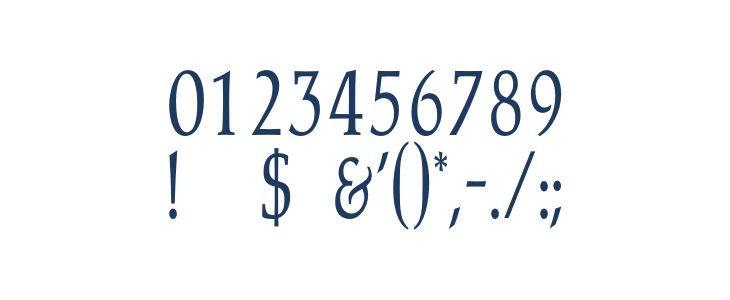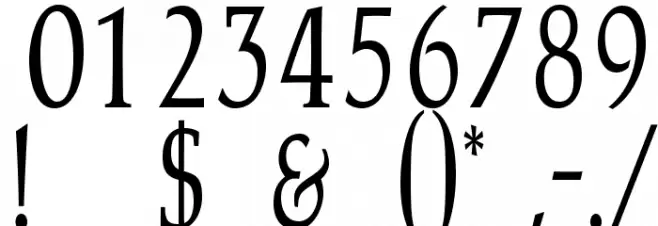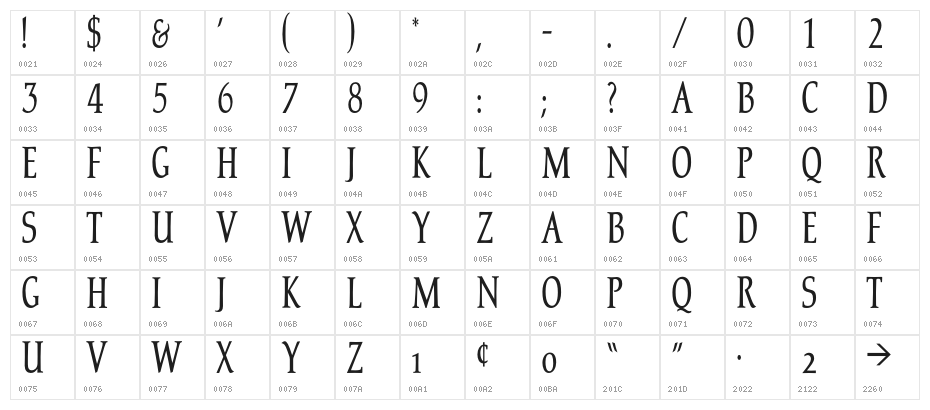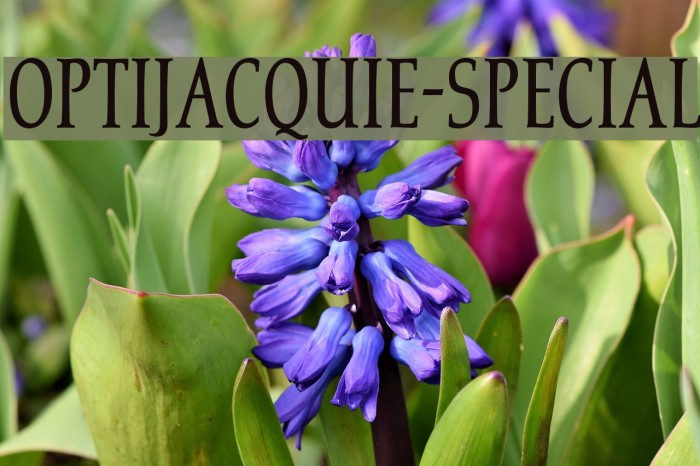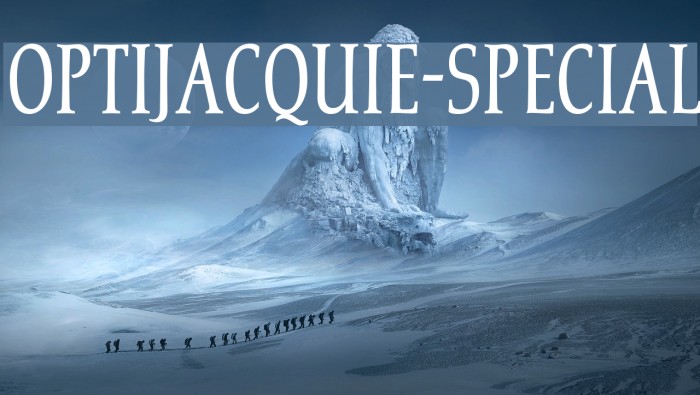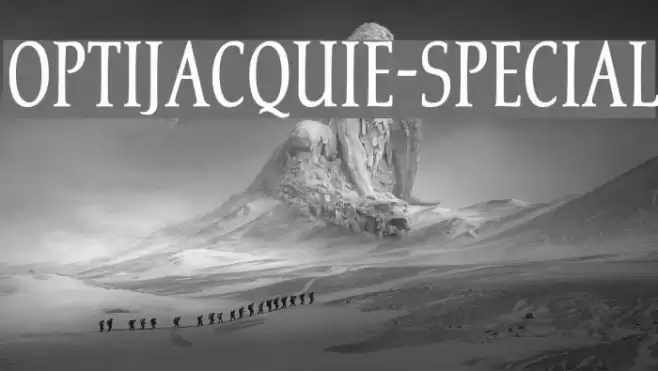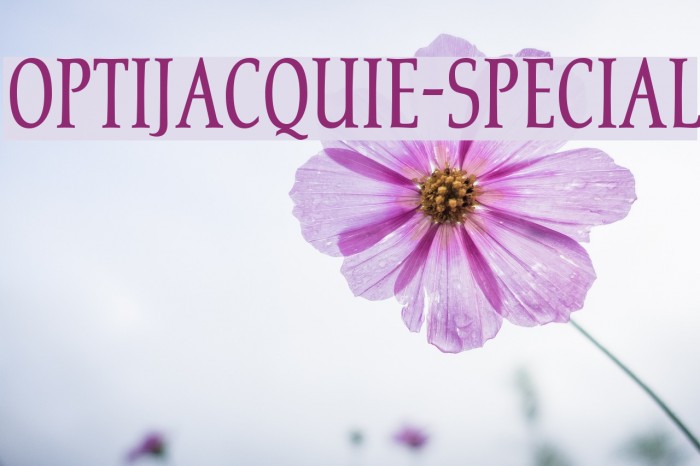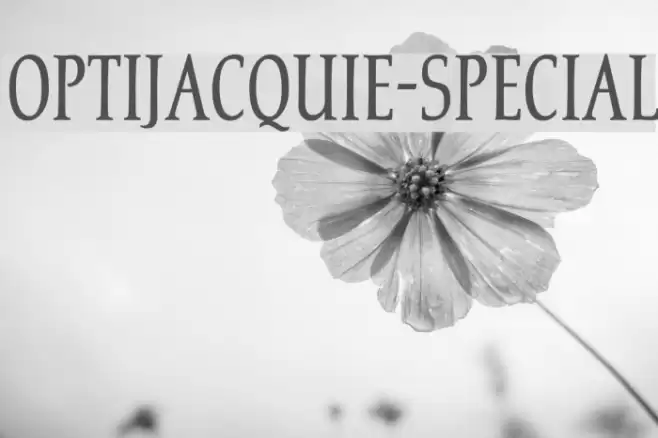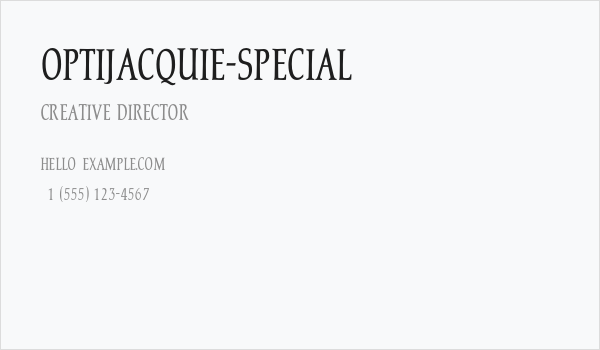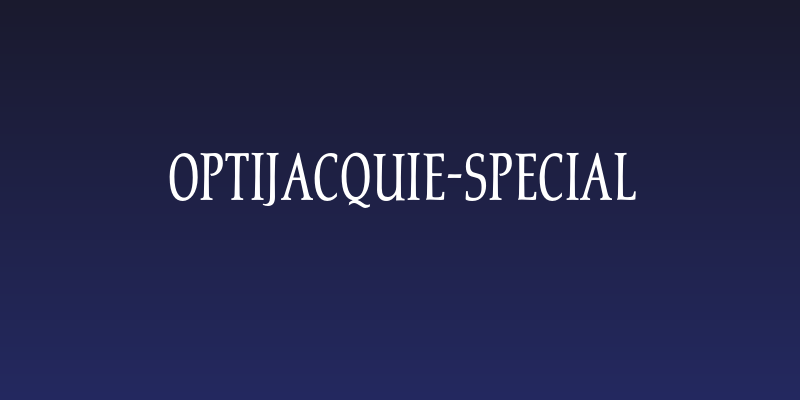
OPTIJacquie-Special Font
OPTIJacquie-Special Description
This font features a classic serif style with elegant, elongated strokes and subtle curves that give it a refined and sophisticated appearance. The uppercase letters are tall and stately, while the lowercase letters maintain a consistent and harmonious flow. The numerals are distinct and clear, with a slight flair that adds character. Special characters are well-integrated, maintaining the overall aesthetic. The font's design is both timeless and versatile, suitable for a variety of formal and professional applications.
| Proposed Projects | Ideal for formal invitations, book covers, editorial design, and branding projects that require a touch of elegance. |